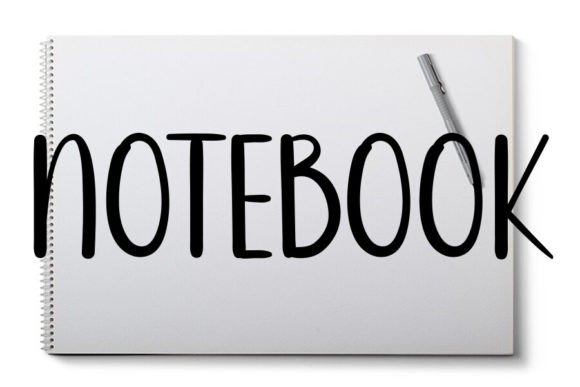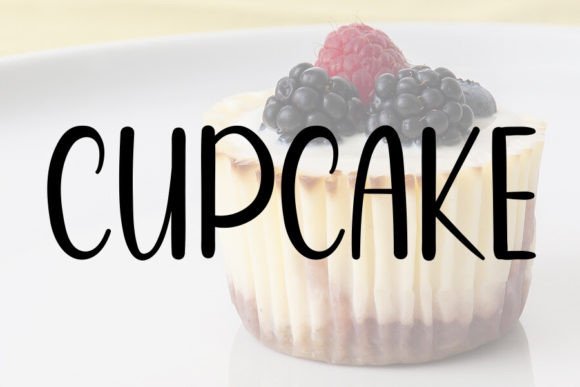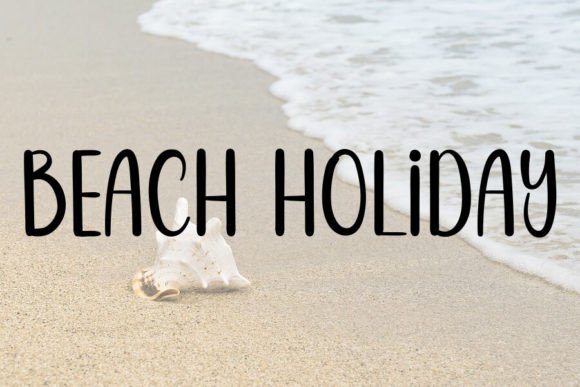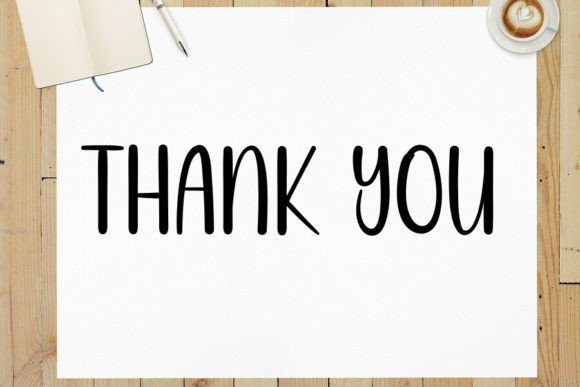
Introducing Christmas Farmhouse Font: A Sweet and Cozy Handwritten Delight
Are you looking for a font that embodies the warmth and coziness of the holiday season? Look no further than the Christmas Farmhouse Font! This beautiful handwritten font is perfect for designers and crafters who want to add a touch of rustic charm to their projects. In this article, we’ll dive into the features and benefits of Christmas Farmhouse Font, and explore how you can use it to create stunning designs that capture the essence of the season.
A Sweet and Beautiful Handwritten Font
Christmas Farmhouse Font is a sweet and beautiful handwritten font that features characters that dance along the baseline. This unique and playful design gives the font a whimsical feel that’s perfect for holiday-themed projects. The font’s handwritten style also adds a personal touch, making it ideal for designs that require a more rustic or vintage look.
Perfect for Adding a Cozy Accent to Your Designs
Whether you’re working on a Christmas card, a holiday-themed craft project, or a festive website design, Christmas Farmhouse Font is the perfect choice. The font’s cozy and inviting style will add a warm and welcoming touch to any design project you wish to create. From invitations and greeting cards to blog posts and social media graphics, this font is versatile enough to be used in a wide range of applications.
Key Features of Christmas Farmhouse Font
- Handwritten style: Christmas Farmhouse Font features a beautiful handwritten style that’s perfect for adding a personal touch to your designs.
- Characters that dance along the baseline: The font’s unique design features characters that dance along the baseline, giving it a playful and whimsical feel.
- Coziness and warmth: The font’s rustic and vintage style evokes a sense of coziness and warmth, making it perfect for holiday-themed projects.
- Versatility: Christmas Farmhouse Font can be used in a wide range of applications, from invitations and greeting cards to blog posts and social media graphics.
How to Use Christmas Farmhouse Font in Your Designs
- Pair it with other fonts: Christmas Farmhouse Font pairs well with other fonts, such as serif or sans-serif fonts. Experiment with different combinations to find the perfect look for your design.
- Use it for headings and titles: The font’s bold and playful style makes it perfect for headings and titles. Use it to add a touch of whimsy to your design.
- Add some festive flair: Use Christmas Farmhouse Font to add a festive touch to your design. You can use it to create holiday-themed graphics, such as snowflakes, holly, or Christmas trees.
Why Designers and Crafters Love Christmas Farmhouse Font
- Unique and playful design: The font’s unique and playful design sets it apart from other fonts. It’s perfect for designers and crafters who want to add a touch of personality to their designs.
- Easily readable: Despite its playful style, Christmas Farmhouse Font is easily readable, making it perfect for body text and other applications where legibility is important.